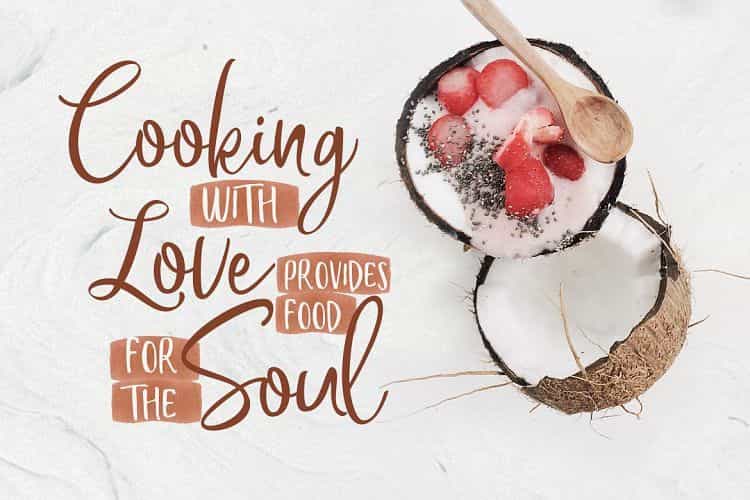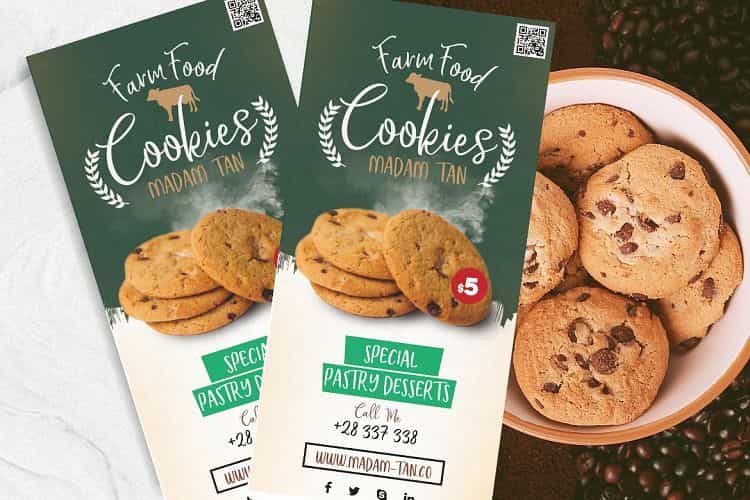
Say hello to the Bread Store Font! Bread Store Font. This is a modern Hand lettering. It is slender, feminine and classy, while still maintaining a friendly feel! It is designed and shared by Han’sCo. It’s an fun script font duos designed with curly and comical style. It perfectly represents rustic in clean lines and modern way. Bread Store Script will make perfectly for elegant logo design, packaging or invitation cards. It also works wonderfully on its own for quotes, and more!